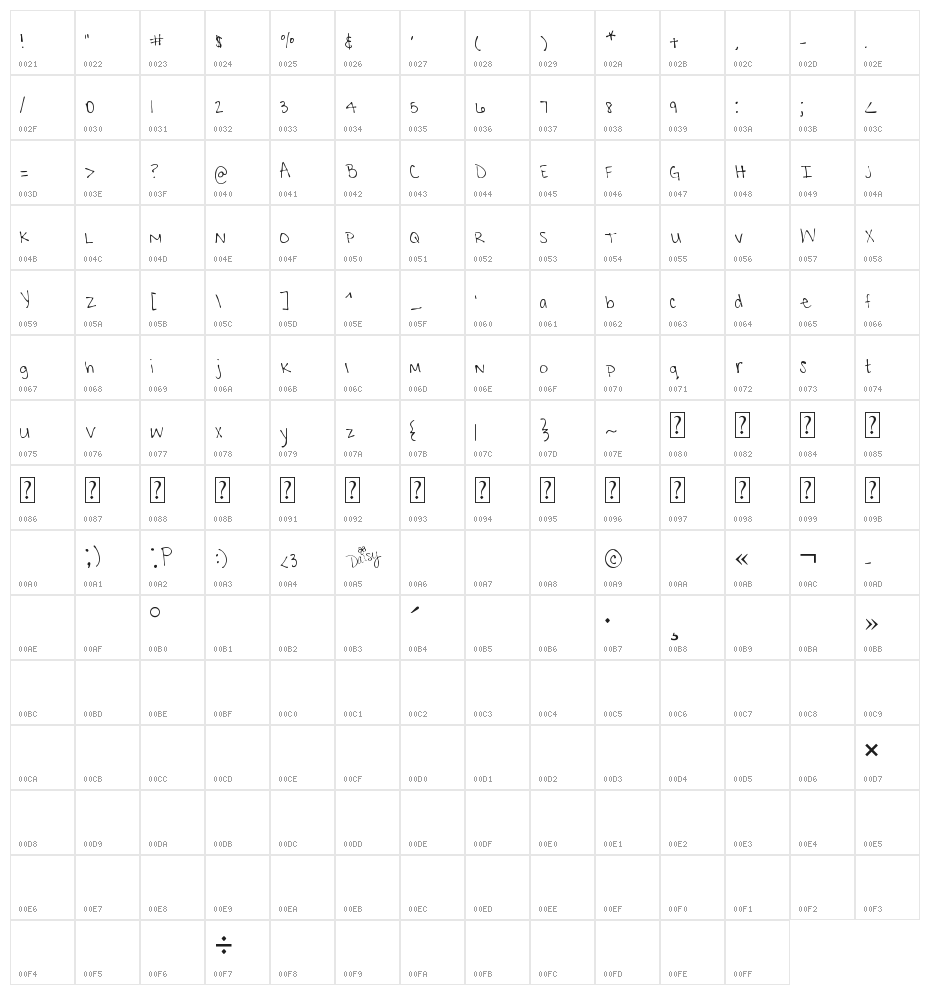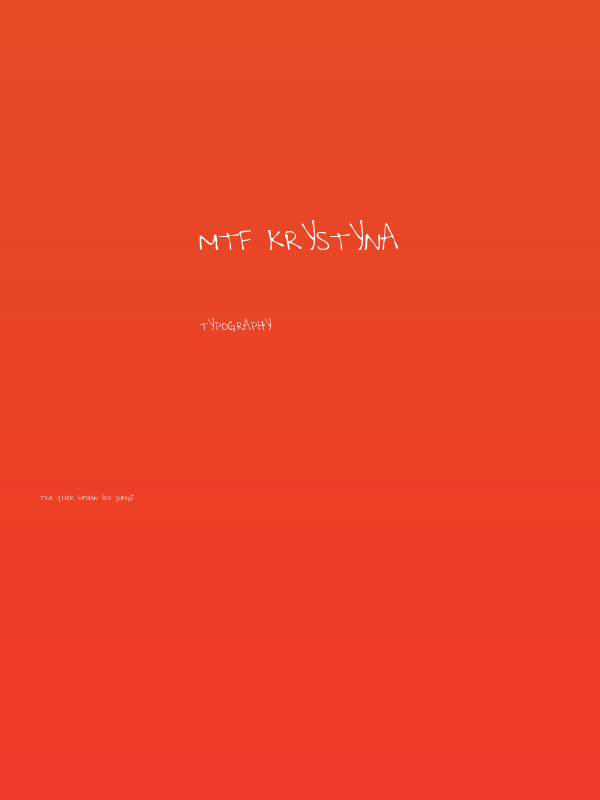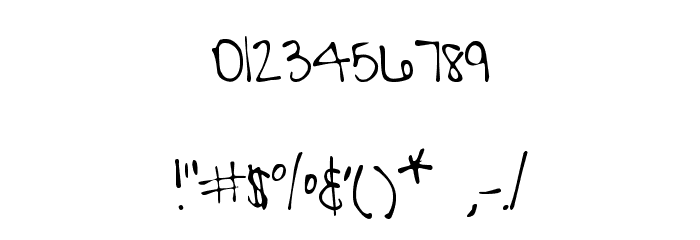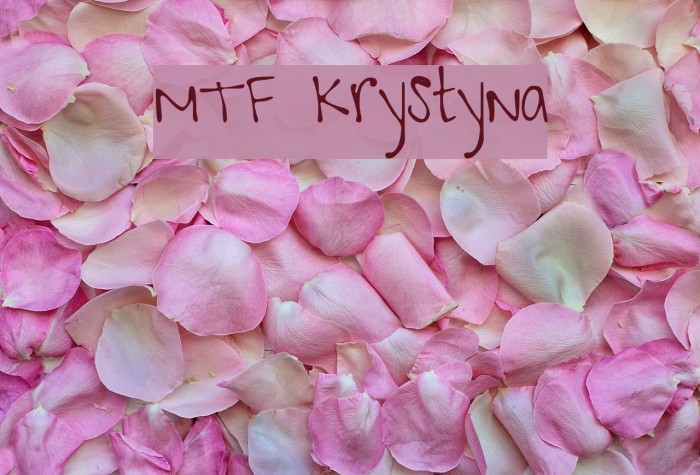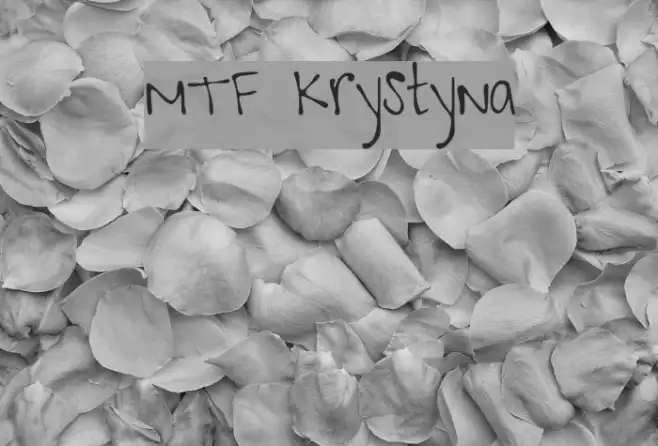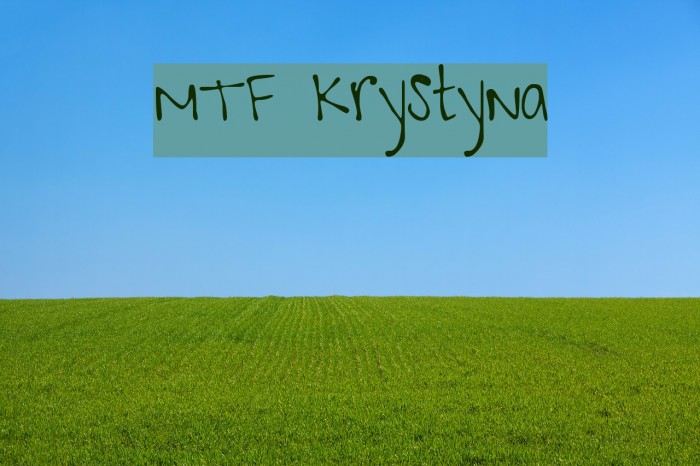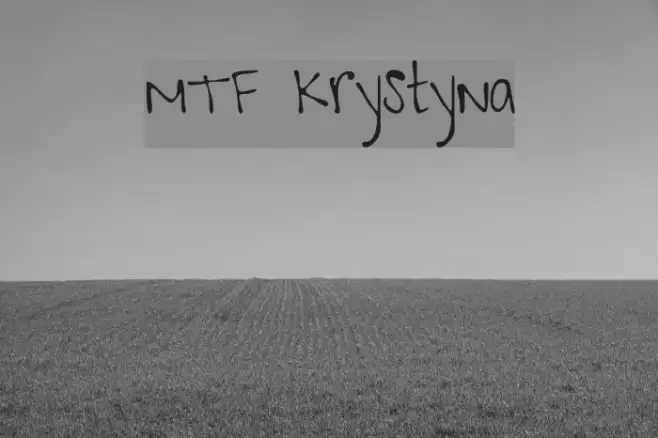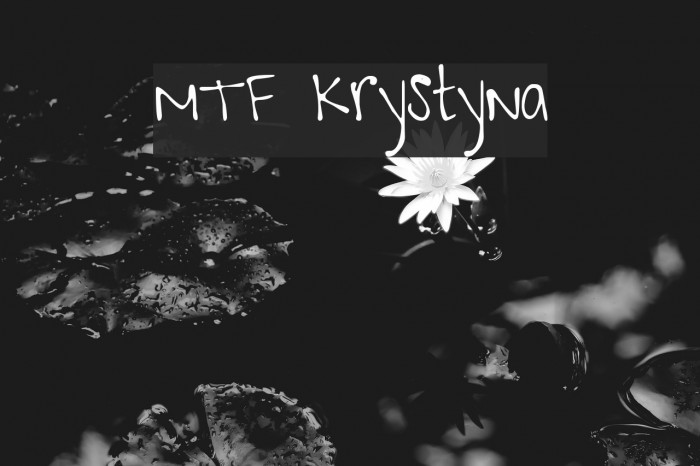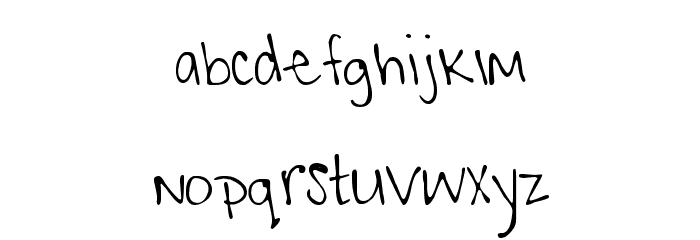
MTF Krystyna Font
MTF Krystyna Description
This font features a playful and informal handwritten style, characterized by its irregular and slightly whimsical letterforms. The strokes are uneven, giving it a casual and personal touch, reminiscent of a quick note or doodle. The uppercase and lowercase letters maintain a consistent style, with a slight slant that adds to its dynamic appearance. The numerals and special characters follow the same playful aesthetic, making it suitable for projects that require a friendly and approachable feel.
MTF-KRYSTYNA UPPERCASE
MTF-KRYSTYNA LOWERCASE
MTF-KRYSTYNA OTHER CHARS